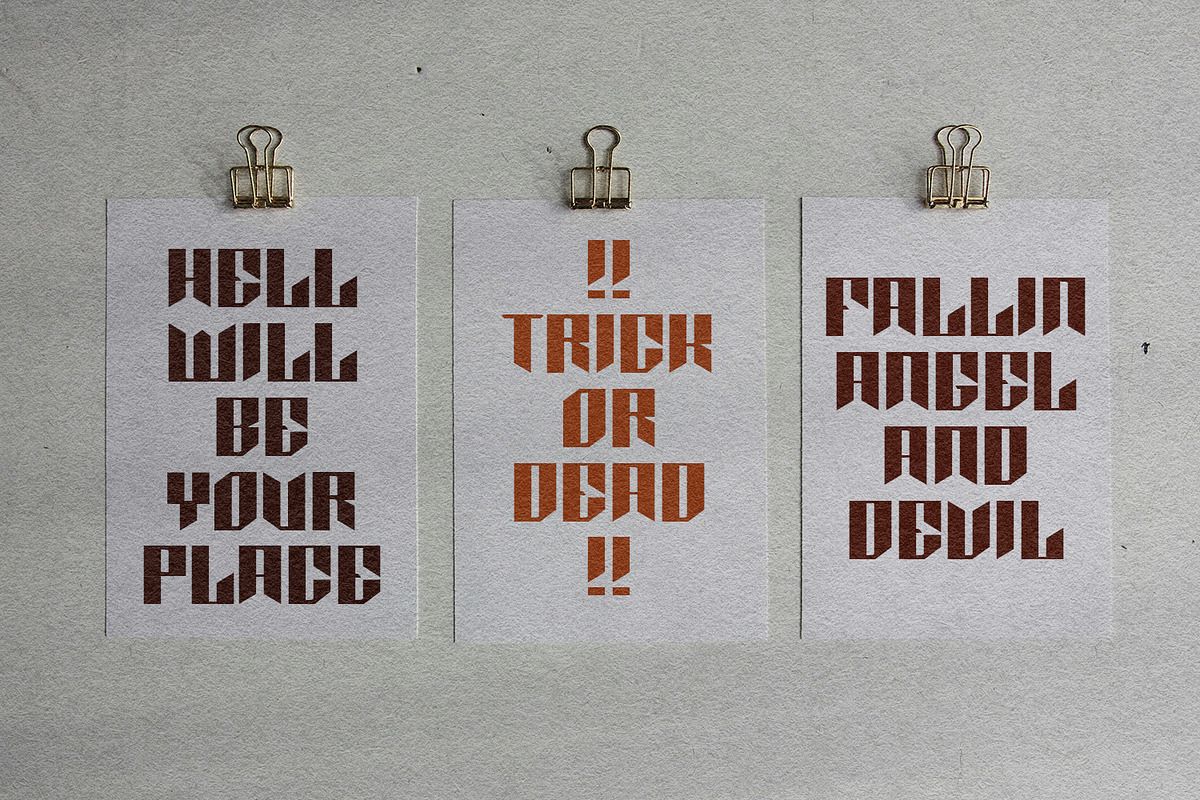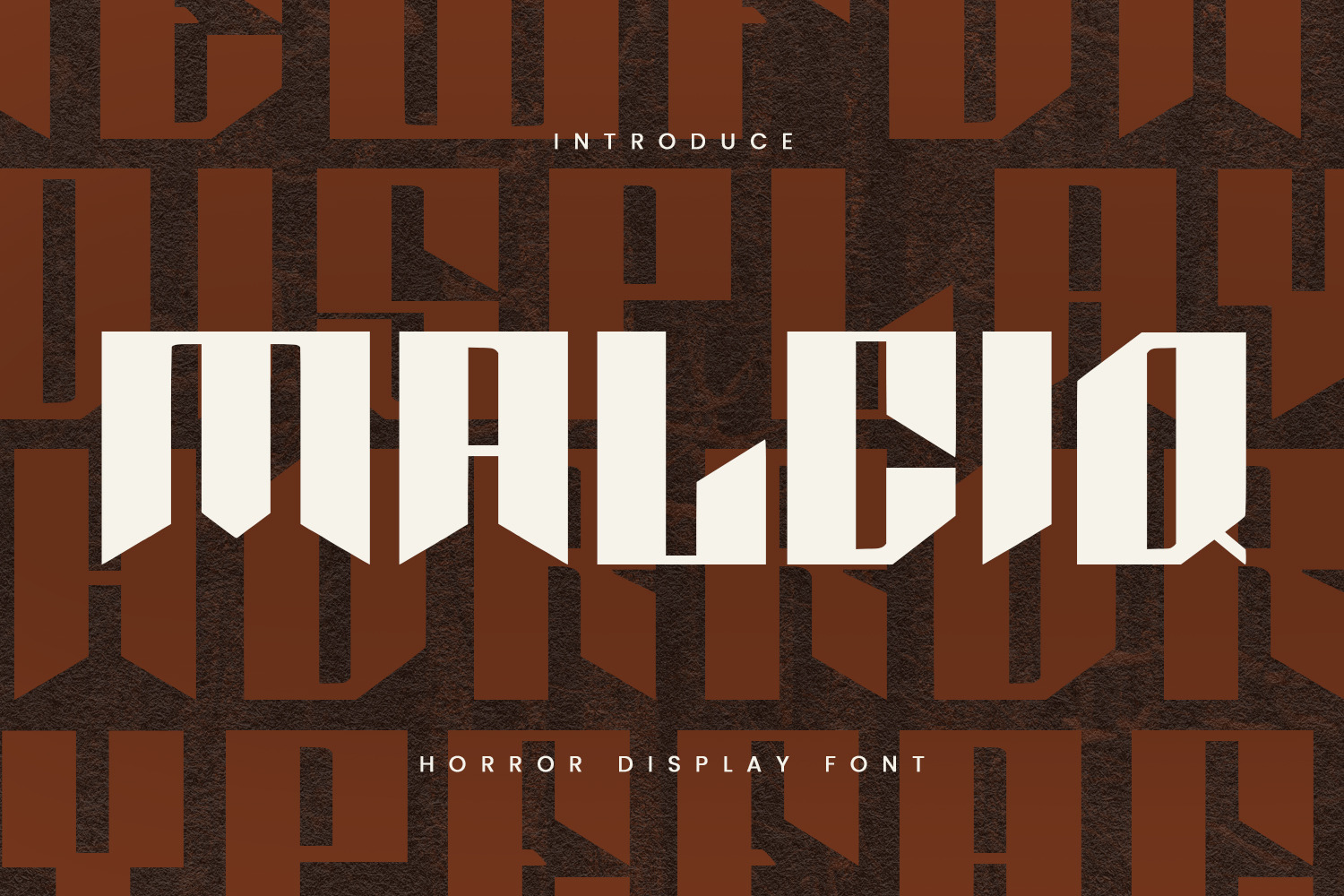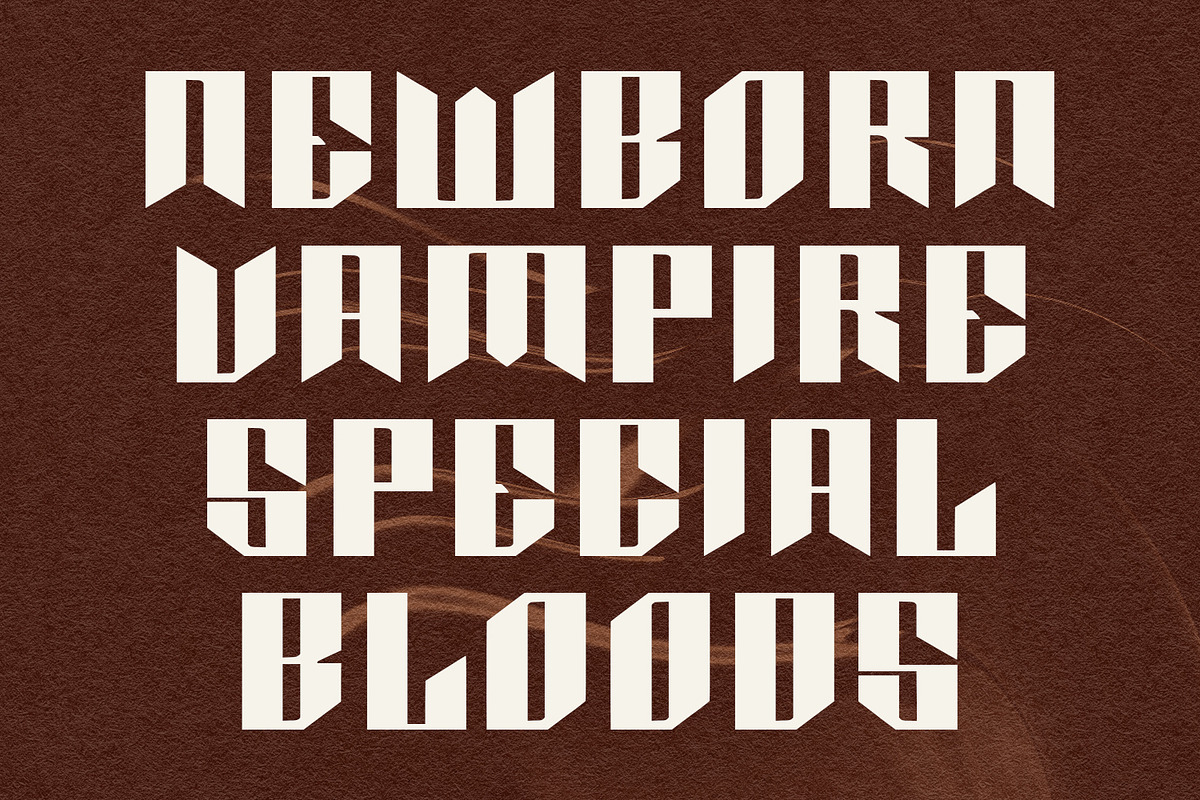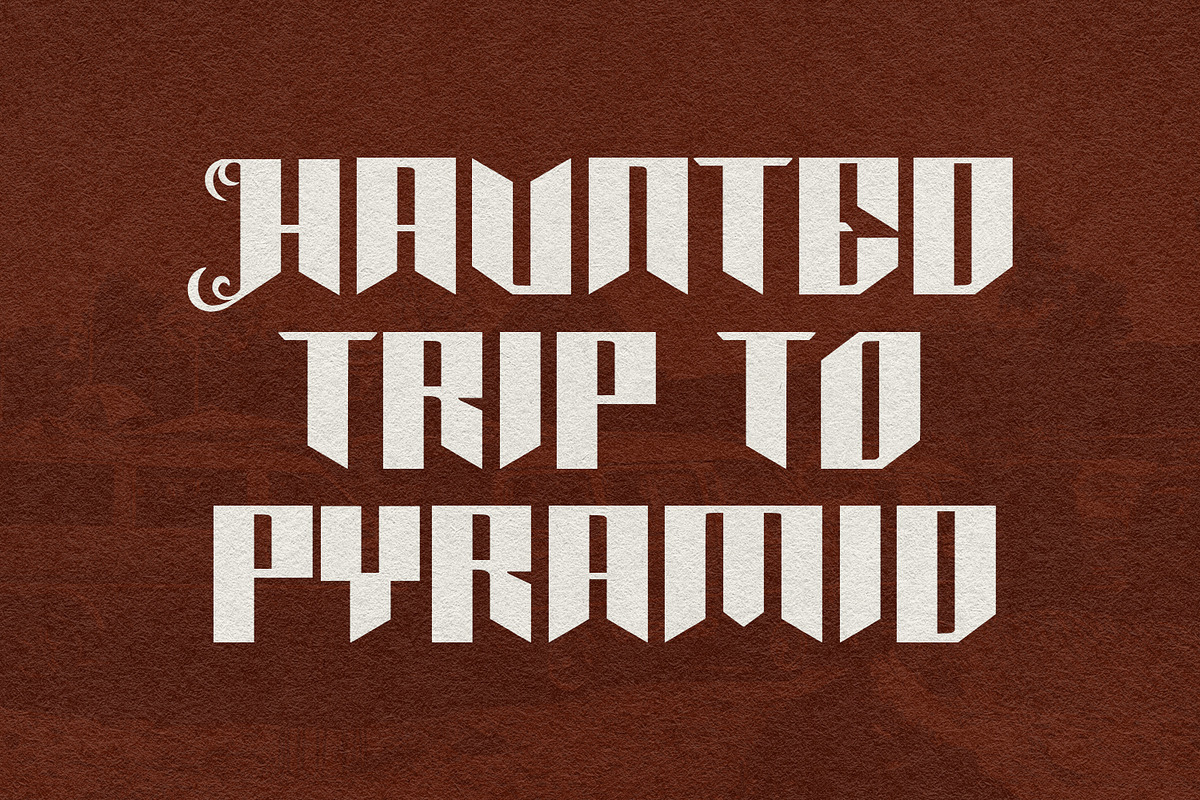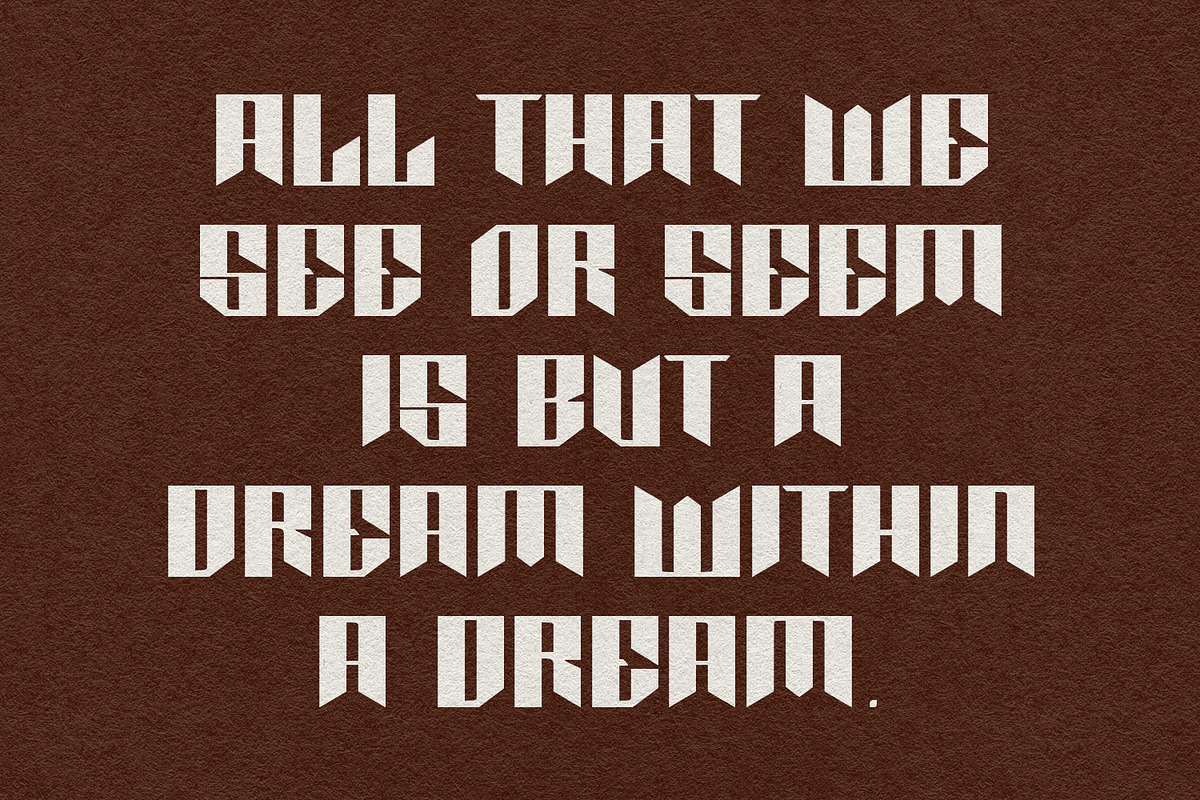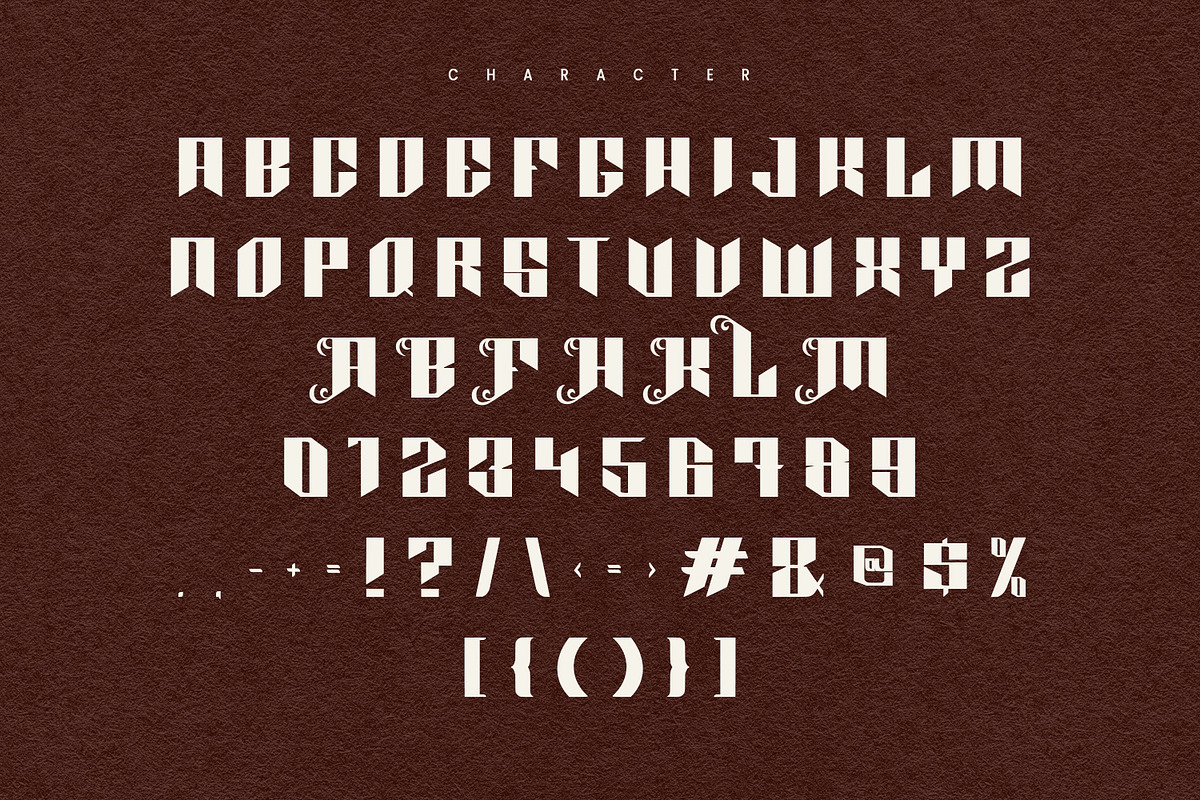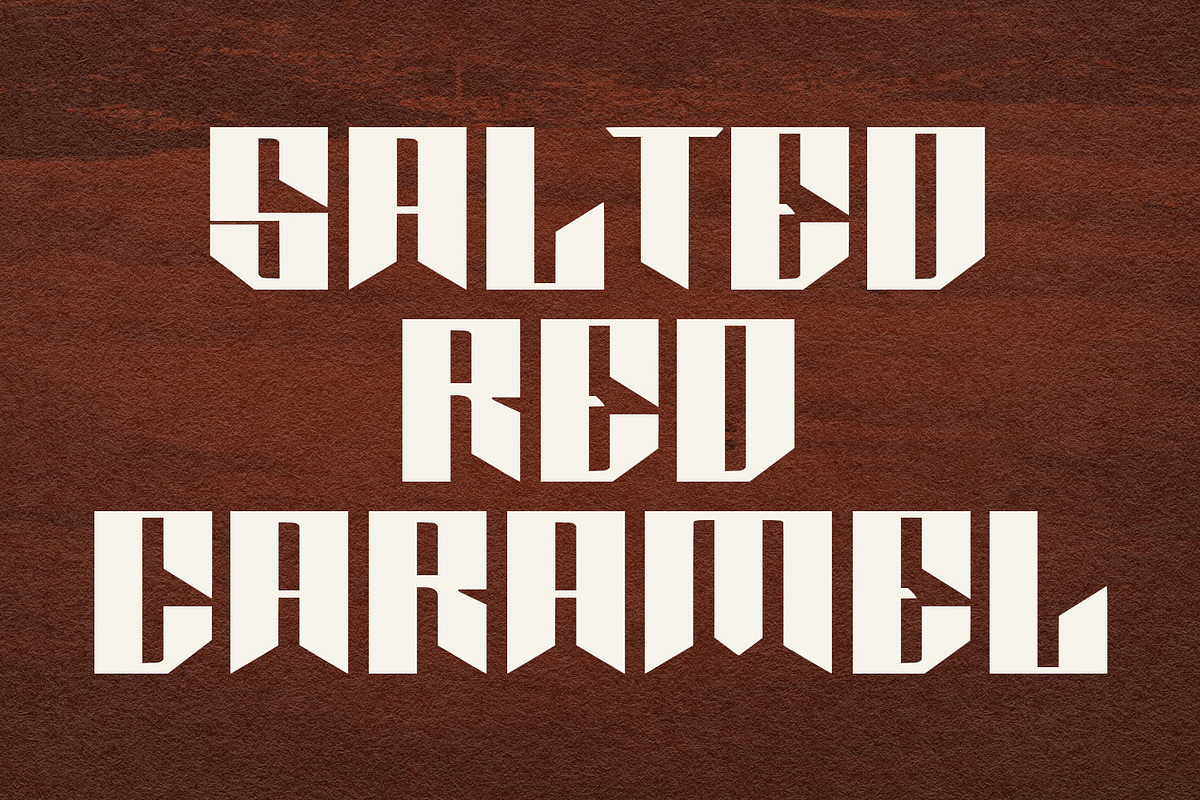
Malciq Horror Display Font
Malciq is a horror display font. With Bold Sharp stroke, Upright and fun character with a bit of alternates. To give you an extra creative work. Malciq font support multilingual more than 100+ language. This font is good for logo design, Social media, Movie Titles, Books Titles, a short text even a long text letter and good for your secondary text font with Script. Make a stunning work with Malciq font.